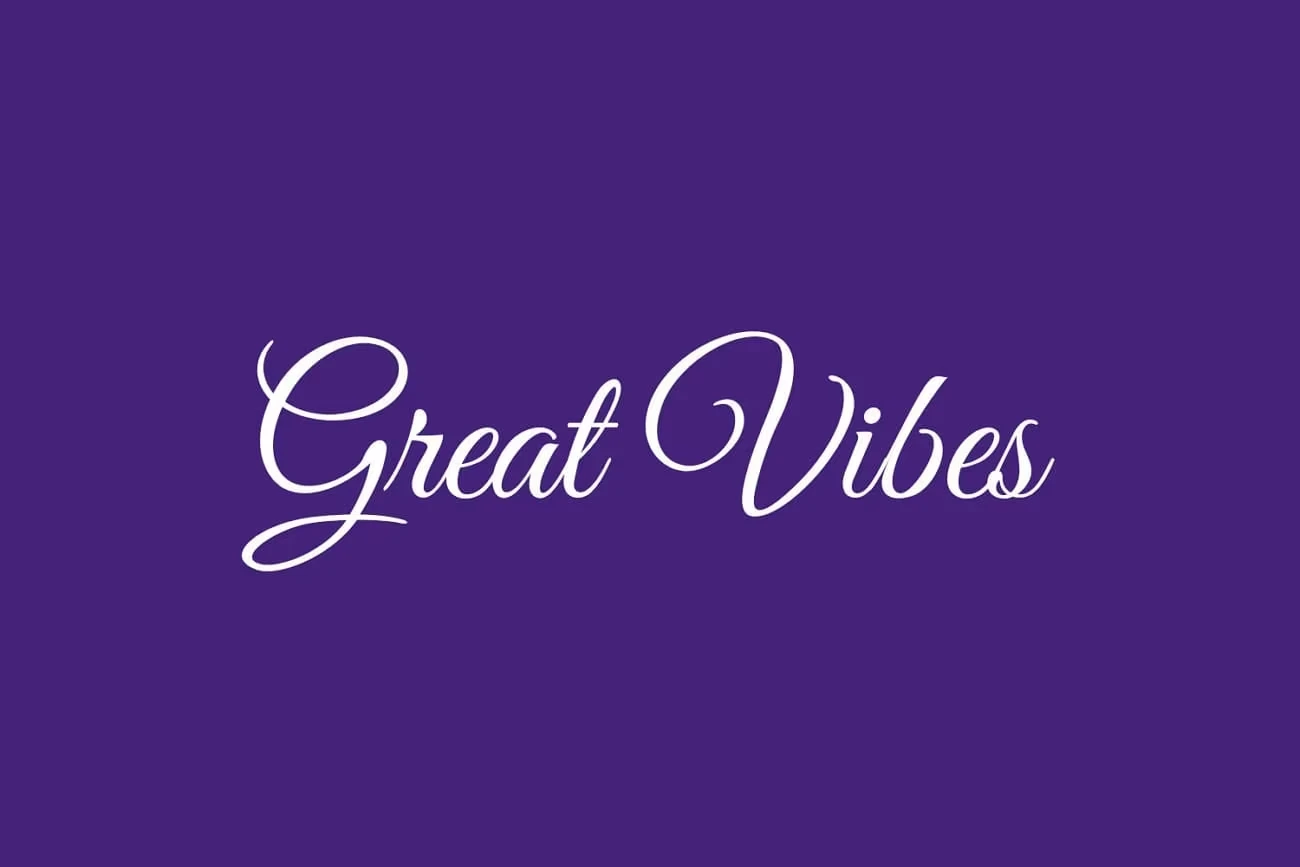
Valentine's Day calls for expressing love, and a heartfelt message in a romantic font does just that. The right font can transform a card for your loved one or any love-related design. Imagine a love letter in plain Arial—it just wouldn't feel the same.
Typography communicates emotion, tone, and personality without words. For Valentine's Day, script fonts are a great choice to evoke intimacy and flair. They remind us of handwritten notes and sweet sentiments, setting the mood for your message. Whether you prefer soft romance or bold passion, there's a font for every love story.
If you want to make your Valentine's Day cards memorable, explore romantic script fonts to add love and charm to your messages.
1. Great Vibes Font
If you’re looking for a script font that’s both elegant and highly legible, Great Vibes is a standout. Designed by Rob Leuschke, this font is a masterclass in balance—it combines traditional script flourishes with modern readability. That makes it perfect for romantic cards that don’t want to sacrifice clarity for style.
What sets Great Vibes apart is its flowing rhythm. Each letter connects smoothly to the next, almost like a dance across the page. It looks great in both large titles and small body text, so you can use it throughout your card design—from the front greeting to the inner message.
It also plays well with other fonts. Pair it with a classic serif like Times New Roman for a timeless look, or a clean sans-serif like Montserrat for a modern contrast. Its versatility is one of the main reasons it continues to be a favorite for weddings, engagements, and of course—Valentine’s Day.
Best uses:
- Titles and headlines
- Elegant name pairings
- Romantic quotes
2. Allura Font
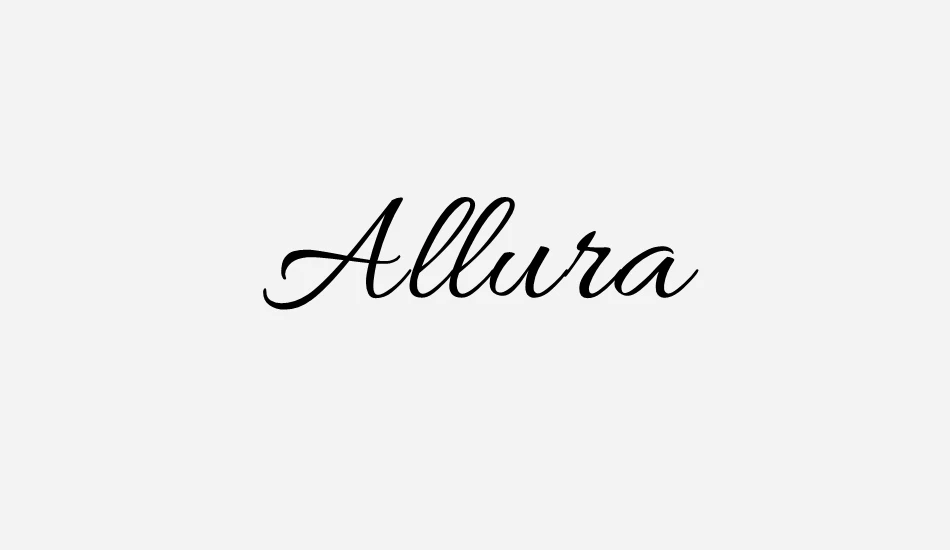
Soft, subtle, and stylish—Allura is another excellent pick for anyone aiming to create a card with a delicate, romantic tone. Created by Rob Leuschke (yes, again!), this font has a lighter, more airy feel than Great Vibes. The strokes are thinner, which makes it perfect for messages that feel more whispered than shouted.
One of the things people love about Allura is its simplicity. It’s not overly dramatic, which makes it feel more modern and clean. This makes it especially suitable for minimalist card designs, pastel themes, and anyone who leans toward quiet elegance.
Because of its fine lines, Allura shines in larger text sizes. Use it for names on the front of your card, or highlight a meaningful phrase inside. Just be mindful when printing—it looks best on high-resolution printers or digital platforms where its delicate nature isn’t lost.
Best uses:
- Clean, minimalist Valentine’s cards
- Simple love quotes
- Couple’s names
3. Dancing Script
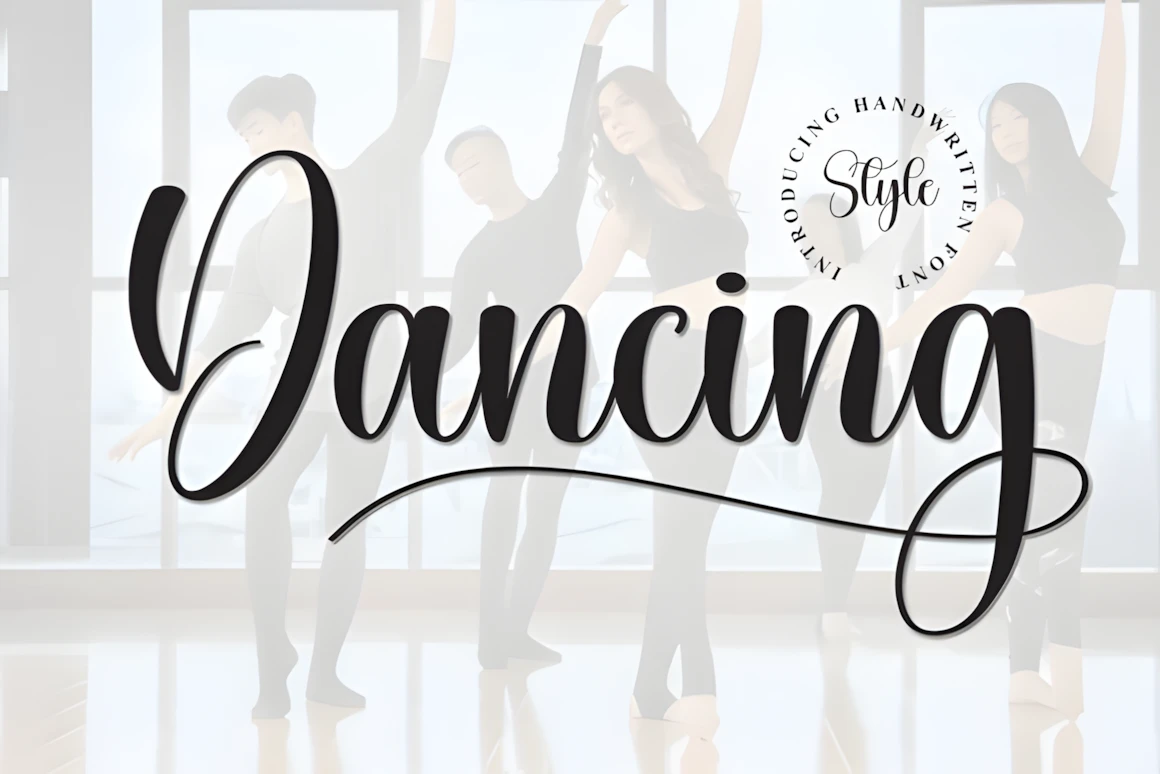
Fun, bouncy, and full of energy—Dancing Script brings a whole different flavor to romantic fonts. If your Valentine’s Day card is meant to be lighthearted, playful, and cheerful, this font is your go-to. It’s inspired by the casual scripts seen in the 1950s, giving it a retro vibe that’s still totally relevant today.
What makes Dancing Script so charming is its movement. The letters are slightly exaggerated in size and shape, mimicking the lively rhythm of a handwritten message from someone bubbling with excitement. It feels warm and informal, like a note passed during class or a sweet message scrawled on a napkin.
This font works especially well for younger couples or anyone who prefers a fun, upbeat take on romance. Use it for cards that include jokes, inside references, or casual love notes. It pairs great with bold colors and playful illustrations like hearts, doodles, or polaroid-style photos.
Best uses:
- Fun and youthful Valentine’s cards
- Personalized messages with flair
- Cards with a retro or whimsical design
4. Lovely Valentine
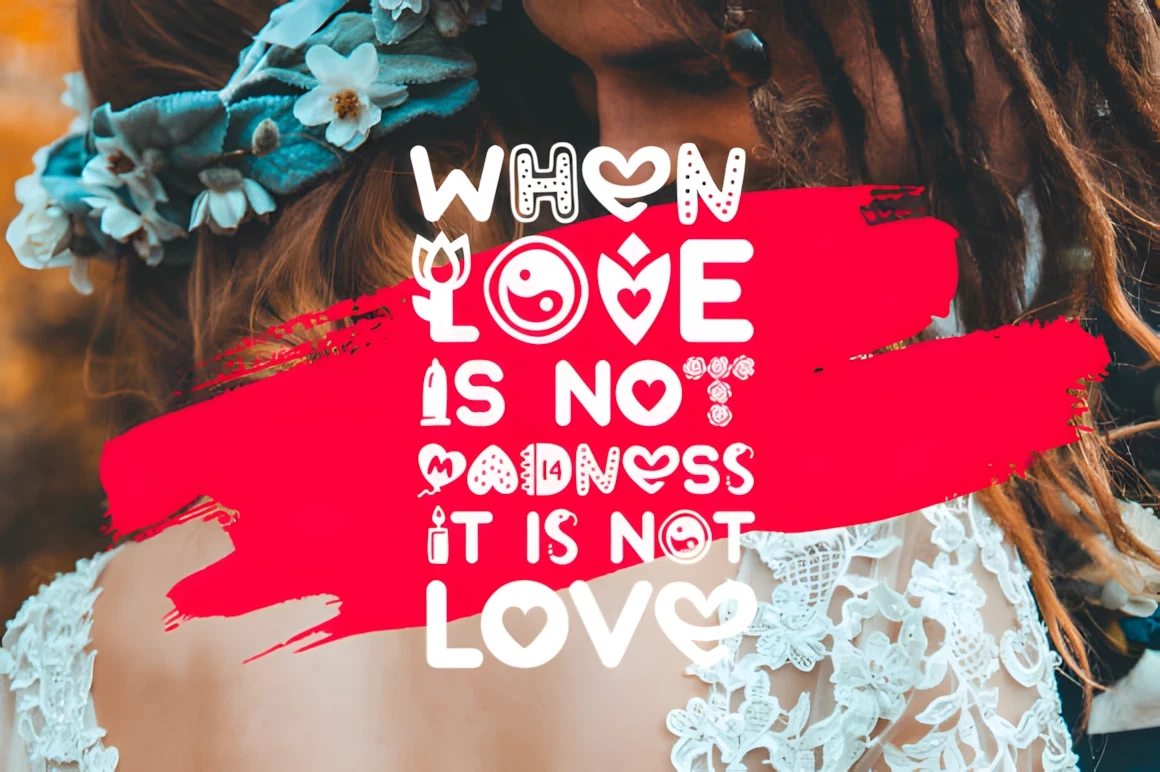
Now this one’s a no-brainer—Lovely Valentine is a script font made specifically with the holiday in mind. It’s the type of font that screams romance at first glance, complete with curly swashes, heart accents, and a flirtatious, handwritten flow that makes it perfect for the season of love.
What sets Lovely Valentine apart is that it doesn’t hold back. It’s unapologetically romantic, full of expressive loops and dramatic tails that bring your text to life. Some versions of this font even come with alternate characters shaped like hearts or decorative swashes that turn a simple message into a stunning graphic.
This is a premium font, so you’ll usually need to purchase a license, but it’s worth it if you’re creating a Valentine’s Day project that needs that extra spark—like a custom t-shirt, romantic poster, or Etsy product.
Best uses:
- Valentine’s Day-themed merchandise
- Extravagant cards or posters
- Designs with hearts, roses, or romantic motifs
5. Parisienne
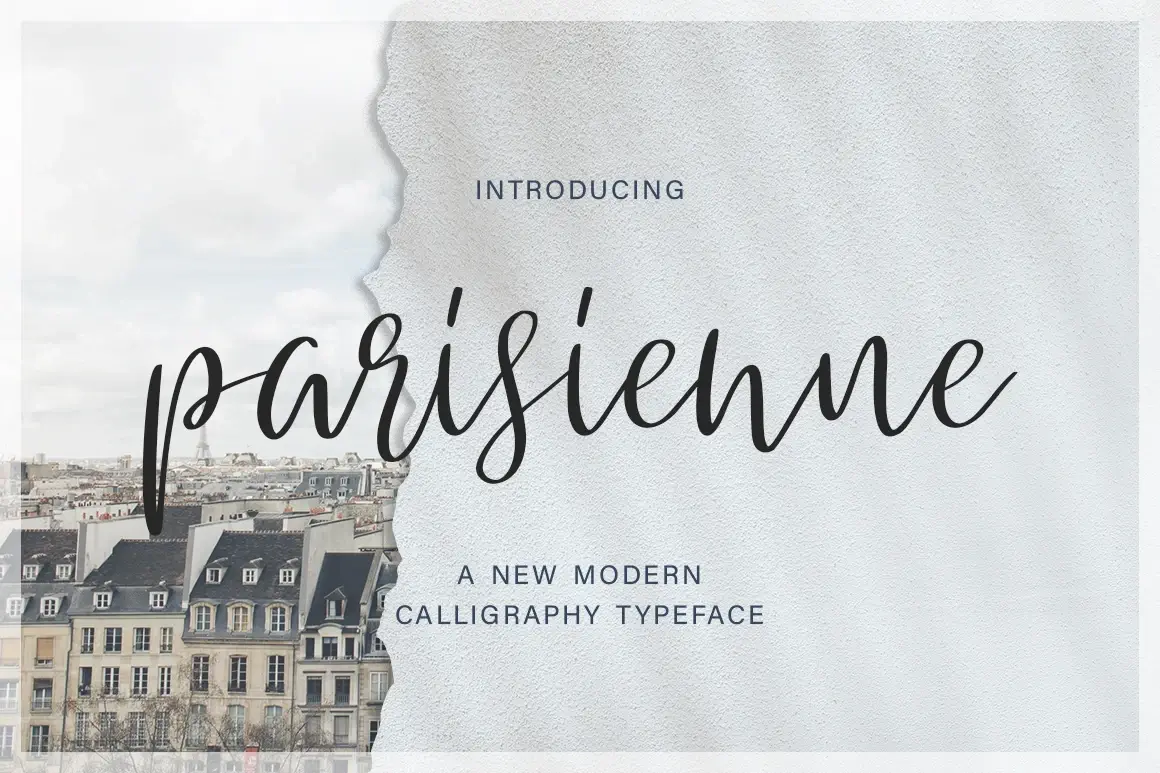
Want to add a touch of European elegance to your message? Look no further than Parisienne. This script font is light, graceful, and has that effortlessly chic French vibe—perfect for anyone wanting their Valentine’s Day card to whisper “Je t’aime” with style.
Parisienne feels classy without being overdone. The strokes are slightly irregular, adding a casual feel, while still maintaining a sophisticated flow. It's perfect for messages that are understated yet deeply meaningful. There’s nothing flashy here—just elegance, simplicity, and charm.
Use Parisienne for small notes, initials, or card headers. Because it’s slightly thinner than some other fonts, it works best in larger sizes where its beautiful curves can shine. It also pairs nicely with serif fonts for that perfect balance between tradition and romance.
Best uses:
- Short quotes or verses
- French-inspired themes
- Elegant gift tags or name cards
6. Adelicia Script
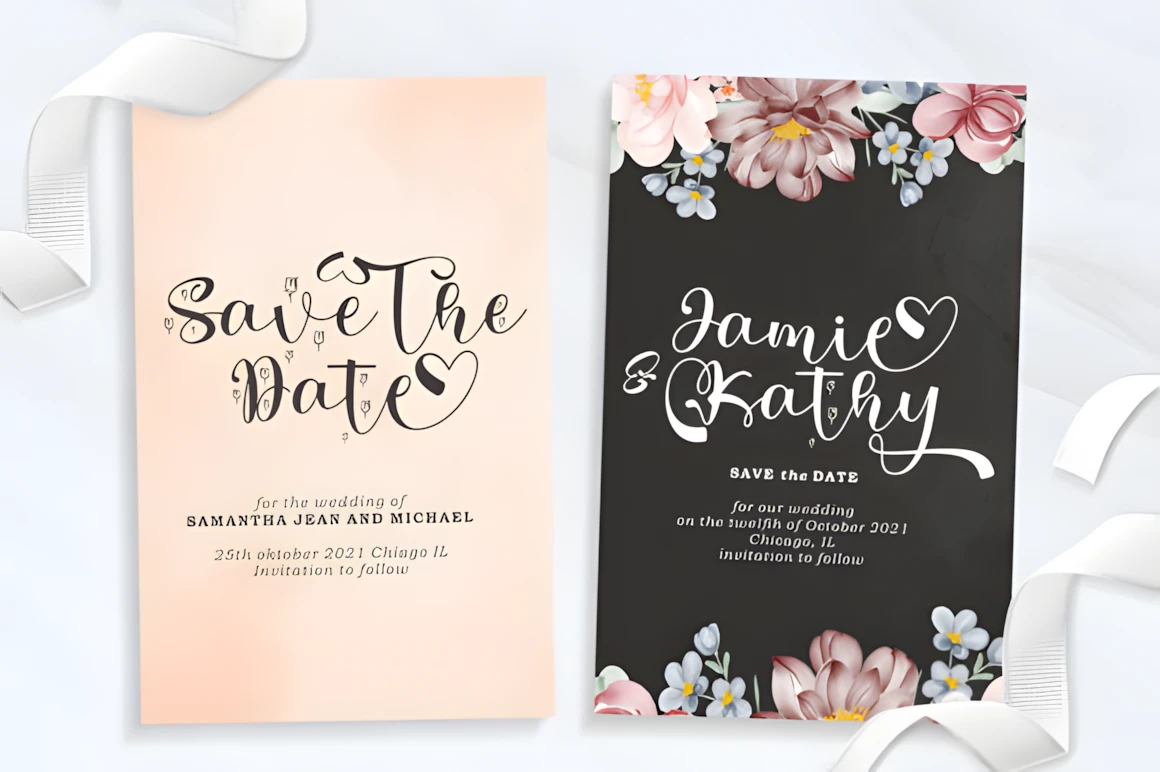
When you want your card to scream luxury and sophistication, Adelicia Script delivers. This is a premium, high-end script font with tons of extras—alternate characters, swooshes, ligatures, and everything you need to make your Valentine’s message look like it came straight out of a wedding invitation.
Adelicia’s letters are long, graceful, and dripping with class. The beauty of this font lies in its versatility. You can go minimal or maximal depending on how you style it. Want to use all the swashes and curls? You’ll create a statement. Prefer to keep it clean? It still looks effortlessly stunning.
This font works beautifully for formal Valentine’s Day designs—think anniversary cards, love letters, or romantic gifts for a spouse. If you’re printing on high-quality cardstock or designing something to frame, Adelicia brings a premium feel that elevates your message.
Best uses:
- Elegant love letters
- Luxury cards and printables
- Wedding or engagement messages
7. Better Together
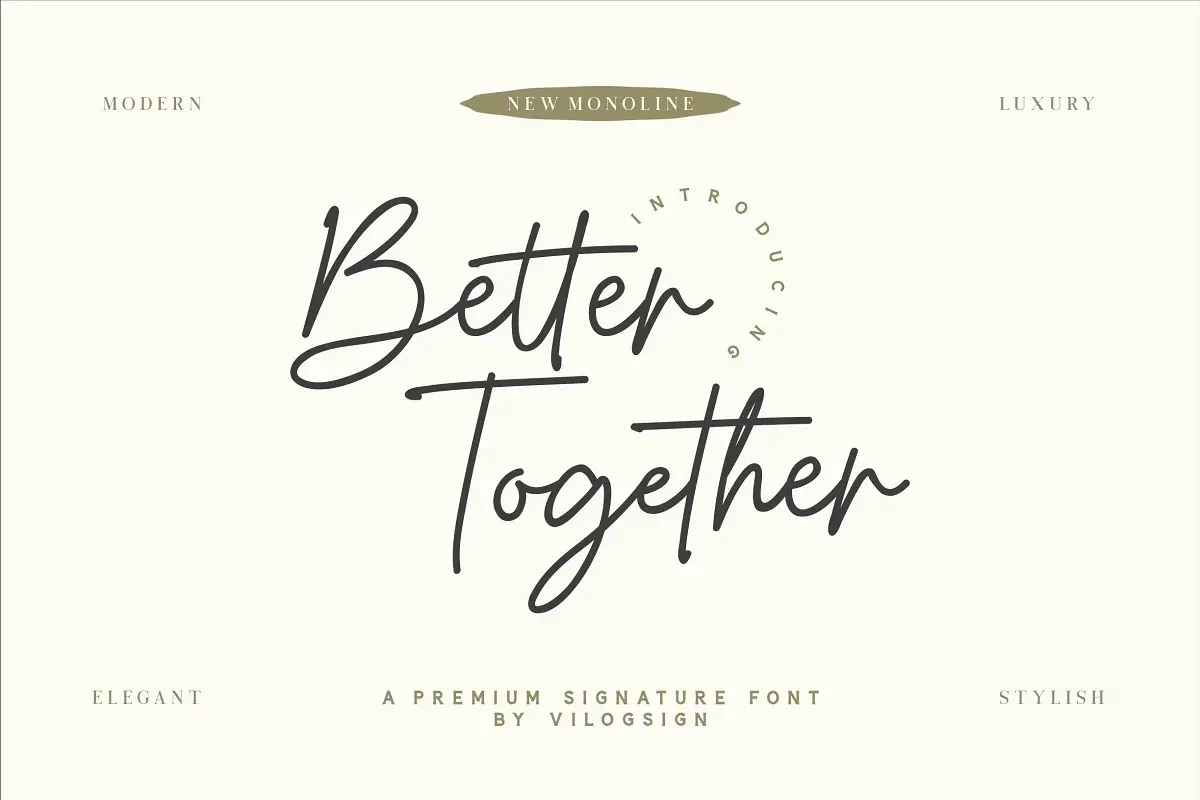
Looking for something raw, real, and oh-so-sweet? Better Together is a hand-lettered script font that feels like it was scribbled from the heart. It doesn’t try too hard—it just is romantic, in a casual, “this is me” kind of way. If you're into boho designs or that modern rustic aesthetic, this font will be your best friend.
What makes Better Together so special is its natural, hand-drawn style. The letters don’t always connect, and there are slight imperfections that make it feel truly handwritten. It’s the kind of font you’d use in a personal journal or a DIY card, and that authenticity makes it even more meaningful.
Pair it with watercolor graphics, kraft paper textures, or natural elements for an earthy, heartfelt Valentine’s vibe. It’s also a great choice for couples who value sincerity over fluff—this font feels like a real conversation, not a rehearsed performance.
Best uses:
- DIY or handmade Valentine’s cards
- Scrapbooking or journaling
- Modern rustic designs
8. Madinah Script Font
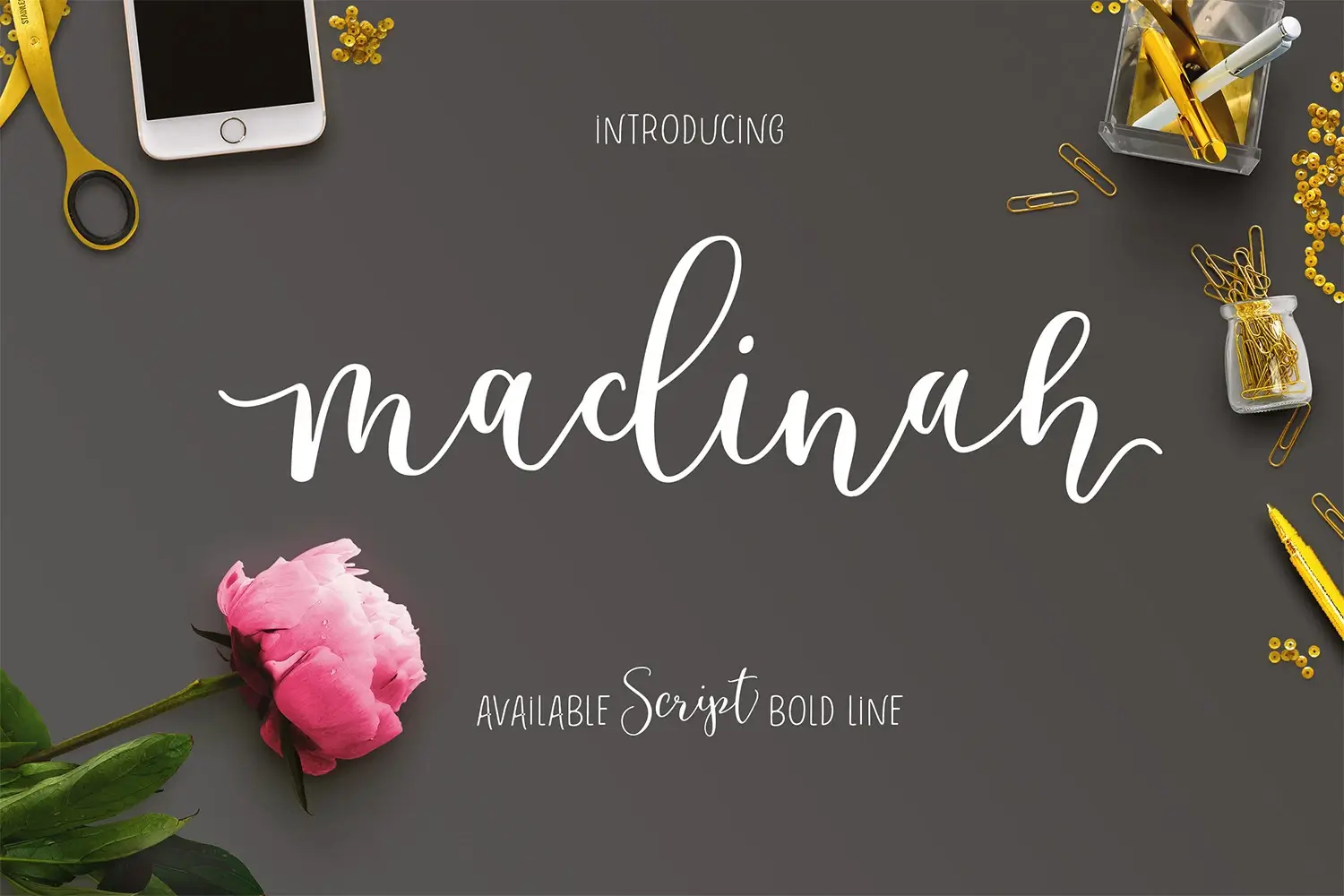
Now we’re getting bold. Madinah Script is a brush-lettered beauty that’s stylish, sassy, and full of personality. Unlike the traditional flowing scripts, Madina Script has a modern twist—it’s got attitude, flair, and just enough edge to make your Valentine’s Day card pop.
This font works especially well for trendy, fashion-forward couples or younger audiences who want to break away from overly formal vibes. It’s perfect for pairing with bold colors like hot pink, black, or gold, and works beautifully in both digital and print formats.
Madina also includes a set of swashes and alternate glyphs, so you can customize your message to look totally unique. Whether you're designing Instagram posts, romantic wall art, or stylish gift tags, this font makes sure your love note stands out.
Best uses:
- Bold, modern Valentine’s designs
- Social media cards or posts
- Cards with personality and sass
9. Hello Honey
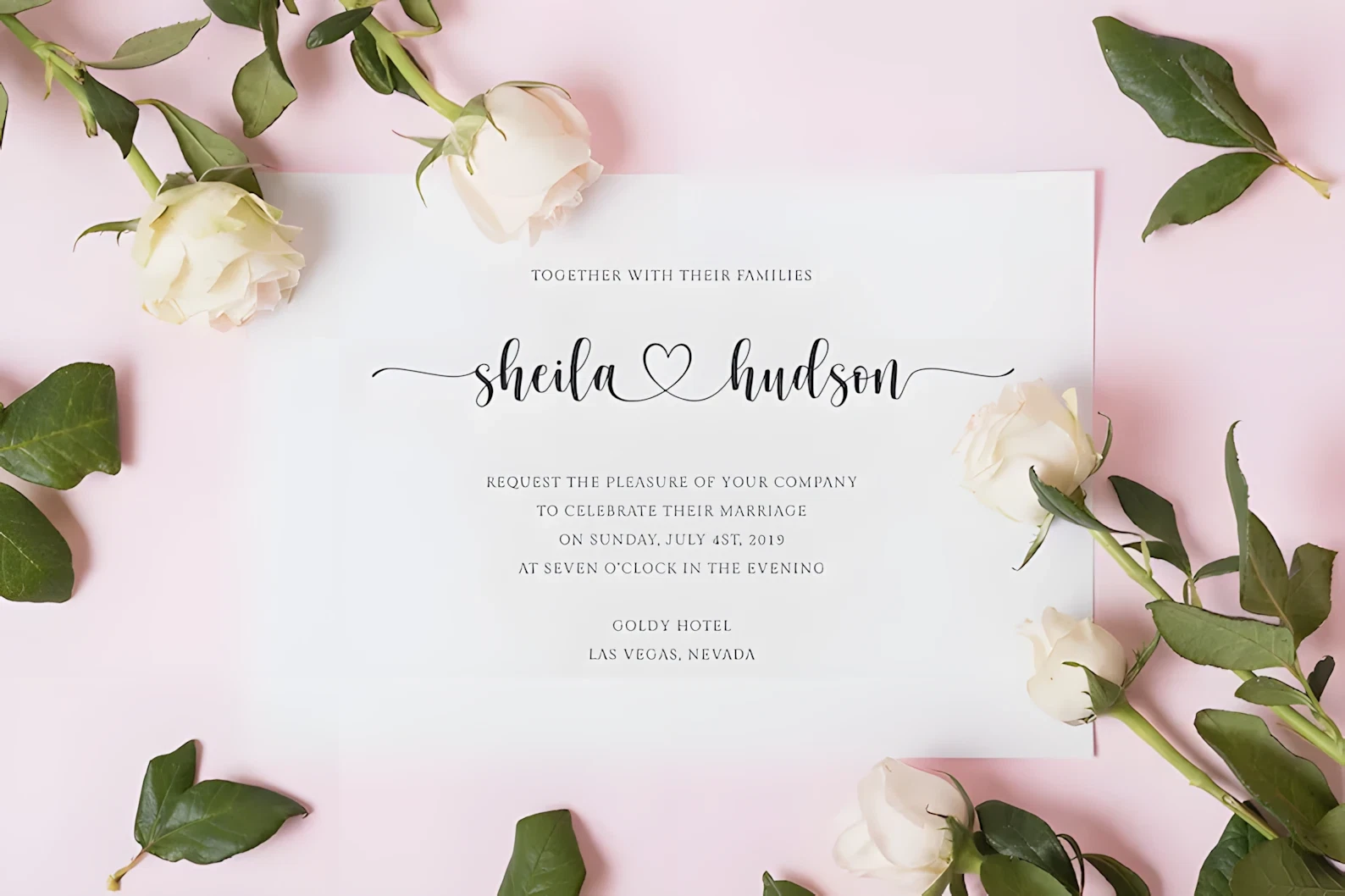
Last but not least, say hello to Hello Honey—a playful, trendy script font that feels like a flirtatious wink. This font is bold, curvy, and full of charisma, perfect for couples who keep things fun, fresh, and fabulous.
What makes Hello Honey unique is its thick strokes and exaggerated loops. It’s got a bit of a retro feel, yet remains totally modern thanks to its clean structure. Use it for bold headlines like “Happy Valentine’s Day!” or cheeky love phrases like “You’re My Person.”
Because of its boldness, Hello Honey works great on everything from cards to mugs, shirts, and tote bags. It holds its own in both light and dark themes and pairs well with sans-serif fonts for a clean, balanced look.
Best uses:
- Flirty cards and messages
- Personalized Valentine’s merch
- Fun-loving couple designs
Read More: Beyond just romantic script fonts, exploring a wider array of beautiful typefaces can truly elevate your heartfelt designs; discover even more lovely choices in our comprehensive guide to 16 Best Valentine’s Day Fonts for Romantic Designs (2026).
Tips for Choosing the Right Font for Your Valentine’s Card
With so many dreamy fonts to choose from, how do you pick the one that fits your message best? It’s not just about what looks pretty—it’s about what feels right for the tone, relationship, and emotion you're trying to express.
Here are a few tips:
- Consider the vibe of your relationship. Is it elegant and poetic? Go with a font like Adelicia Script or Parisienne. More fun and flirty? Hello Honey or Dancing Script could be your match.
- Think about readability. Some fancy fonts can get a little hard to read, especially in small sizes. Always test your text before printing or posting.
- Use font pairings. Combine a romantic script with a clean serif or sans-serif font. This adds contrast and helps highlight key parts of your message.
- Match it to your design. Soft pastels and watercolors? Choose something delicate like Allura. Bold reds and blacks? Madina Script or Hello Honey might suit better.
- Use swashes and alternates wisely. Fancy swashes are gorgeous—but too many can clutter your message. Less is often more.
The right font should feel like your own handwriting—an extension of your voice, your feelings, your love. Let it reflect the soul of your message.
How to Use Script Fonts Effectively
Now that you’ve found the perfect romantic script font, it’s time to talk about how to use it. A beautiful font can lose its charm if it’s poorly applied. Script fonts, in particular, have their own set of quirks and best practices. Done right, they can make your Valentine’s Day card look like a love letter from the stars. Done wrong… well, even the prettiest font can look messy or hard to read.
Here’s how to use script fonts like a pro:
1. Prioritize Readability
It might sound obvious, but readability is everything. Romantic script fonts often include loops, flourishes, and swashes that can make them tricky to read—especially in smaller sizes. Before finalizing your design, print it out or view it on your phone to see how it looks at different sizes.
- Avoid using script fonts in long paragraphs.
- Keep them for titles, headers, and short quotes.
- If the font includes swashes, limit them to the first or last letter of a word.
2. Don’t Overdo the Flourishes
Swashes are like spice—you only need a pinch. Using too many extended flourishes or loops can overwhelm your design. They work best when used sparingly to highlight a word or phrase.
Many script fonts come with alternate characters or glyphs. Choose one or two special characters to make your message pop, but resist the urge to use them for every letter.
3. Pair with Simpler Fonts
Script fonts shine when paired with clean, minimal fonts. Use a sans-serif like Montserrat, Lato, or Raleway for body text, and let the script font lead the design in titles or quotes. This contrast keeps the design elegant and balanced.
Here’s an example pairing:
- Header (Script Font): “Forever Yours” in Great Vibes
- Body (Sans Serif): “Happy Valentine’s Day! I hope your heart is full of joy today and always.”
4. Color Choice Matters
The color of your font can amplify its romantic feel—or ruin it. Red, pink, gold, and blush tones are typical for Valentine’s Day, but don't shy away from deep burgundy, cream, or even black for high contrast.
Try combinations like:
- Rose gold script on a blush background
- Deep red script on a cream-colored card
- White script on a photo background (with enough contrast)
5. Use Proper Line Spacing
Script fonts often need more generous line spacing (also called leading) than block fonts. Crowding the lines will make your text hard to read and take away from the beauty of the script. Add a little breathing room so each flourish and curve has space to shine.
6. Avoid All Caps in Script Fonts
Most script fonts aren’t designed for all-caps use. The letters won’t connect properly, and the overall result can look jarring. Stick to sentence or title case to maintain the font’s natural flow.
Fonts add feeling to words. For Valentine’s Day cards, the right font is key. Romantic scripts add warmth and intimacy. Whether it's for a partner, crush, or friend, a good font makes your words memorable.
There are free fonts like Great Vibes and Alex Brush, as well as paid options like Adelicia Script and Madinah Script. Pair fonts well and personalize your message.
Let your font voice your love.
FAQs
1. Can I use these romantic script fonts for commercial Valentine’s Day products?
Yes—but only if you have the correct license. Many free fonts are for personal use only. If you plan to sell cards or digital designs, make sure to purchase a commercial license or choose fonts with open commercial use terms.
2. Which romantic script font is best for a modern look?
For a modern aesthetic, go for Madinah Script, Hello Honey, or Better Together. These fonts offer a fresh take on romance without being overly traditional.
3. Are script fonts suitable for printing on T-shirts or mugs?
Absolutely! Just make sure the font has bold enough lines to stay legible when scaled or printed. Fonts like Madinah Script work great on physical items.
4. What’s a good romantic font pairing combo?
Try pairing Allura with Montserrat, or Great Vibes with Lora. You want a romantic script for flair and a readable serif or sans-serif for clarity.